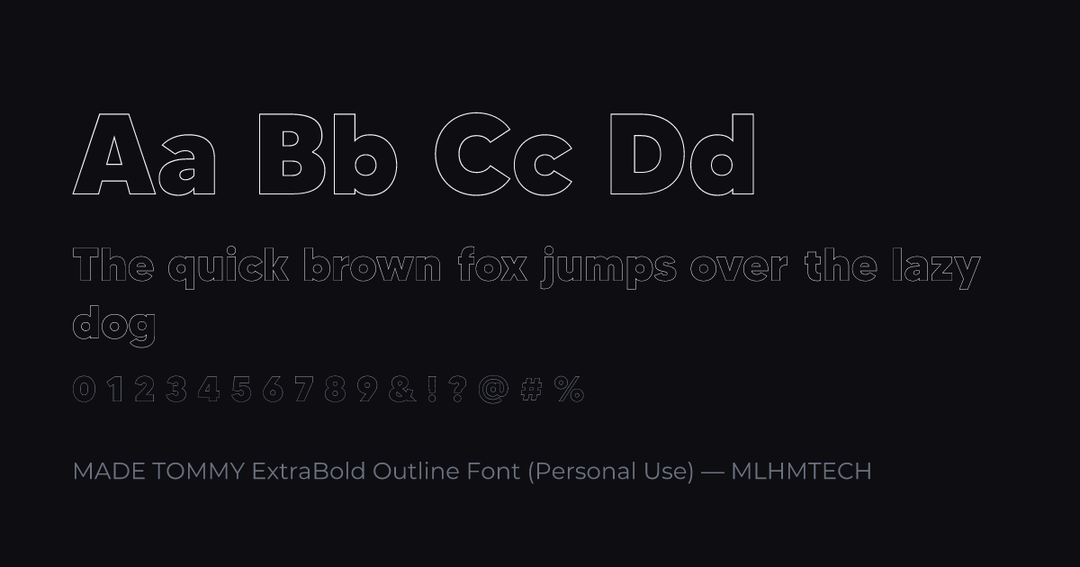
MADE TOMMY ExtraBold Outline Font (Personal Use)
A bold, outlined display font that adds a modern, impactful look to your designs. Perfect for headlines, posters, and branding.
MADE TOMMY ExtraBold Outline is a striking display font with a heavy weight and outlined style. Its bold, geometric letterforms make it ideal for grabbing attention in posters, social media graphics, and packaging.
Use it to create eye-catching titles, logos, and promotional materials that stand out from the crowd.